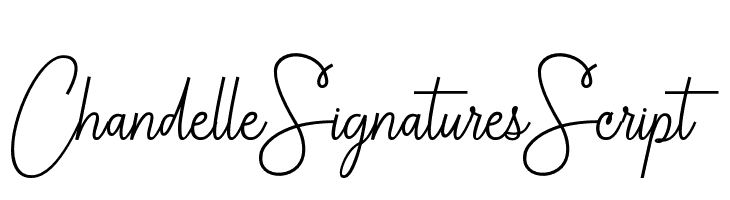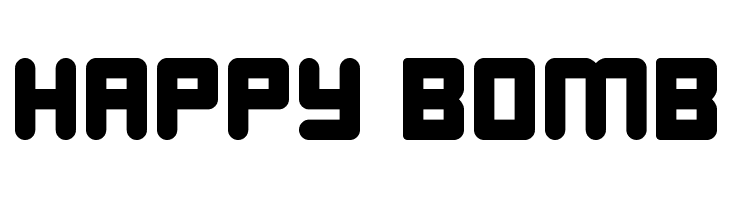
An elegant, cursive script font with a flowing, handwritten style.
A playful, hand-drawn font with a whimsical and casual style.
A pixelated, retro-style font inspired by early digital graphics.
A bold, rounded font with a modern and playful style.
A bold, italic font with rounded characters and a modern, energetic style.
A pixelated, retro-style font with a digital, video game aesthetic.
A bold, geometric font with sharp angles and a modern look.
A bold, geometric font with a futuristic, stencil-like design.